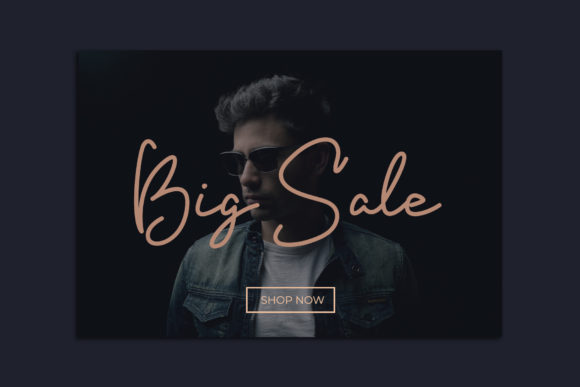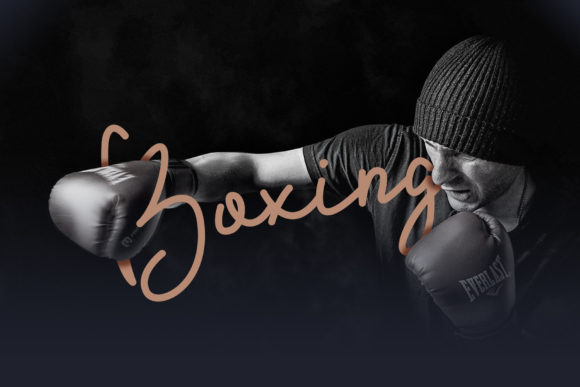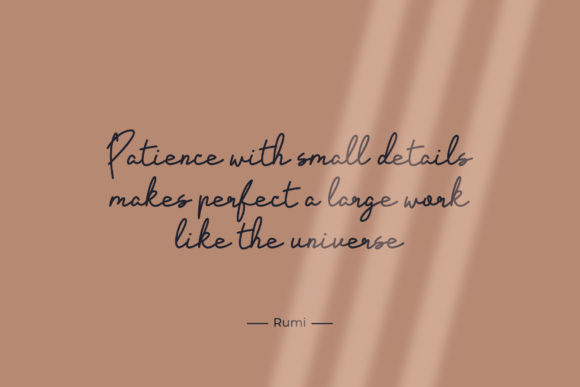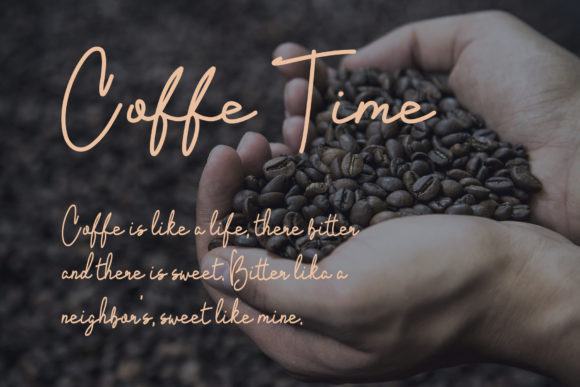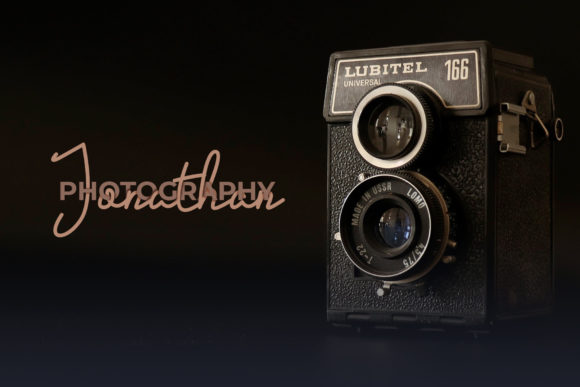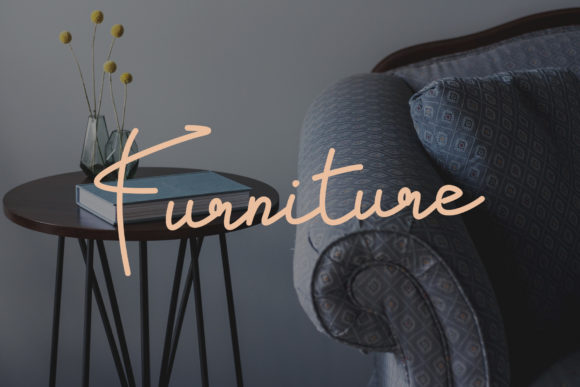
Eaglind Font: Elevate Your Designs with a Modern Script Style
In the world of typography, fonts play a crucial role in conveying messages, expressing emotions, and creating visual identities. For designers, crafters, and creative enthusiasts, finding the perfect font can be a daunting task. However, if you’re looking for a modern script font that exudes elegance and sophistication, look no further than Eaglind Font.
What is Eaglind Font?
Eaglind Font is a contemporary script font that boasts a signature style, perfect for making a statement in various design projects. Its unique blend of classic and modern elements makes it an excellent choice for a wide range of applications, from quote messages and book covers to presentation covers, branding, logo watermarks, and more.
Key Features of Eaglind Font
- Modern Script Style: Eaglind Font features a modern script style that is both elegant and eye-catching, making it perfect for designs that require a touch of sophistication.
- Signature Style: The font’s signature style sets it apart from other script fonts, giving your designs a unique and distinctive look.
- Versatility: Eaglind Font is highly versatile and can be used in various design projects, including quote messages, book covers, presentation covers, branding, logo watermarks, and more.
- Easy to Read: Despite its ornate style, Eaglind Font is easy to read, making it perfect for body text and captions.
Use Cases for Eaglind Font
Eaglind Font is an excellent choice for various design projects, including:
- Quote Messages: Add a touch of elegance to your quote messages with Eaglind Font, making them perfect for social media posts, flyers, and posters.
- Book Covers: Create stunning book covers with Eaglind Font, which is sure to grab the attention of potential readers.
- Presentation Covers: Make a lasting impression with Eaglind Font, perfect for presentation covers, reports, and proposals.
- Branding: Establish a strong brand identity with Eaglind Font, which can be used for logos, business cards, and letterheads.
- Logo Watermarks: Add a touch of sophistication to your logo watermarks with Eaglind Font, perfect for protecting your designs.
Why Choose Eaglind Font?
With so many fonts available, why choose Eaglind Font? Here are a few reasons:
- Unique Style: Eaglind Font offers a unique and distinctive style that sets it apart from other fonts.
- High-Quality Design: The font is designed with high-quality craftsmanship, ensuring that it looks great in any design project.
- Versatility: The font’s versatility makes it an excellent choice for a wide range of design projects.
Tips for Using Eaglind Font
To get the most out of Eaglind Font, here are a few tips:
- Use it Sparingly: Use Eaglind Font sparingly to make a lasting impression, rather than overusing it and diluting its impact.
- Pair it with Other Fonts: Pair Eaglind Font with other fonts to create a unique and visually appealing design.
- Experiment with Colors: Experiment with different colors to find the perfect combination that complements Eaglind Font.
Eaglind Font is a modern script font that offers a unique and distinctive style, perfect for designers, crafters, and creative enthusiasts. With its versatility, high-quality design, and ease of use, Eaglind Font is an excellent choice for various design projects. Whether you’re looking to create stunning quote messages, book covers, presentation covers, branding, logo watermarks, or more, Eaglind Font is sure to elevate your designs to the next level.